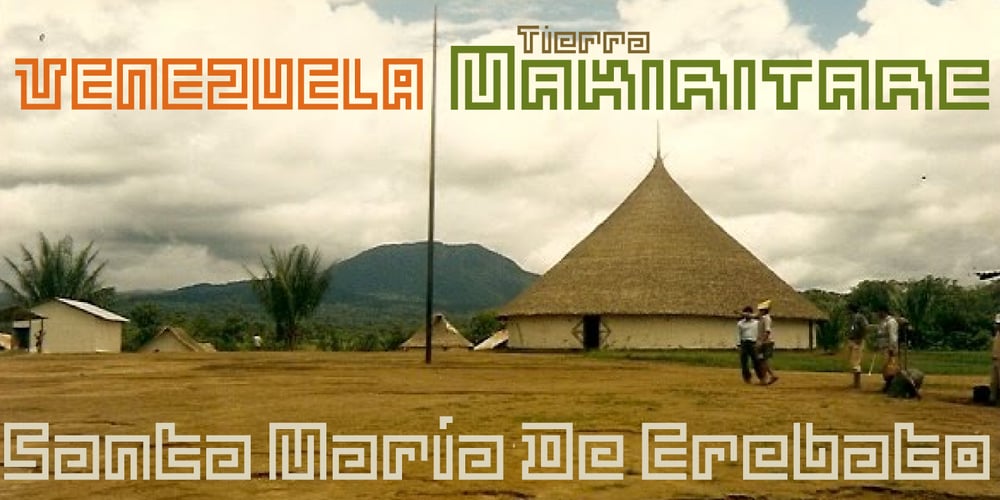
Makiritare Font Family was designed by John Moore and published by John Moore Type Foundry. Makiritare contains 3 styles and family package options. Makiritare is a display font for headlines that originates from a research work on pure geometry of great simplicity from a Venezuelan ethnicity artisanal form from men called Makiritare or Yecuana. These rivers sailors and architects of the jungle live in the village of Santa Maria de Erebato on the border with Brazil. Despite having a prodigious symbolism in their art, they didn’t have until recently a font that is tailored to your expression. It all started with a trip to the Amazon in 1976 with the notion of creating my thesis as a graphic design student. In 1992 I created the first letterform that was evolving to a more elaborate version being presented and selected at the International Typography Biennial Letras Latinas in 2006. Today JMTF presents Makiritare with a more complete and mature family of three weights, alternative characters, small caps, ordinals and ligatures. Makiritare fits any application that have an innovative and modernist purposes. Recommended for titles or short phrases, with striking large-scale use.